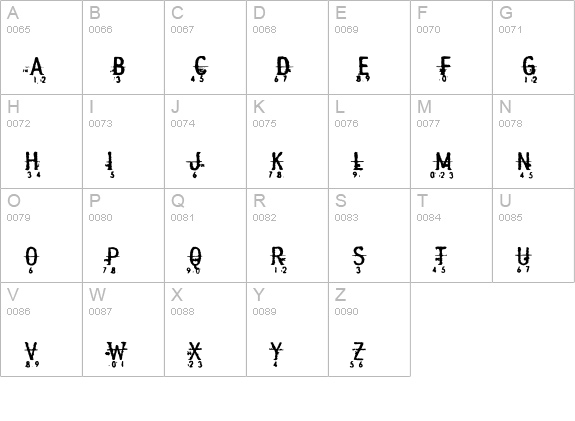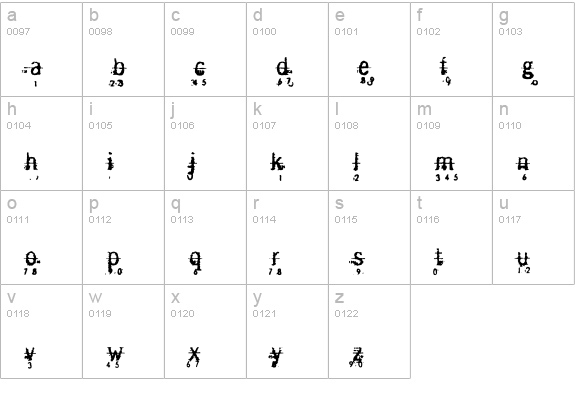
IndecisionNumbered Font Details
IndecisionNumbered font is the perfect blend of elegance and versatility, designed to add a touch of sophistication to any project. With its unique combination of curvaceous letterforms and modern lines, this font is sure to grab attention and leave a lasting impression. But what sets IndecisionNumbered font apart from the rest is its ability to capture the essence of indecision itself. The carefully crafted numbers seem to hover between different styles, creating a sense of uncertainty and intrigue. Whether you're designing a logo, crafting a headline, or creating eye-catching posters, this font is your go-to choice for making a statement. And the best part? IndecisionNumbered font is completely free! That's right, you can download this remarkable font at no cost from FontsMarket.com. This means that you can add a touch of sophistication to your designs without breaking the bank. So why wait? Embrace the power of IndecisionNumbered font and elevate your designs to a whole new level. Download it today from FontsMarket.com and let your creativity soar.